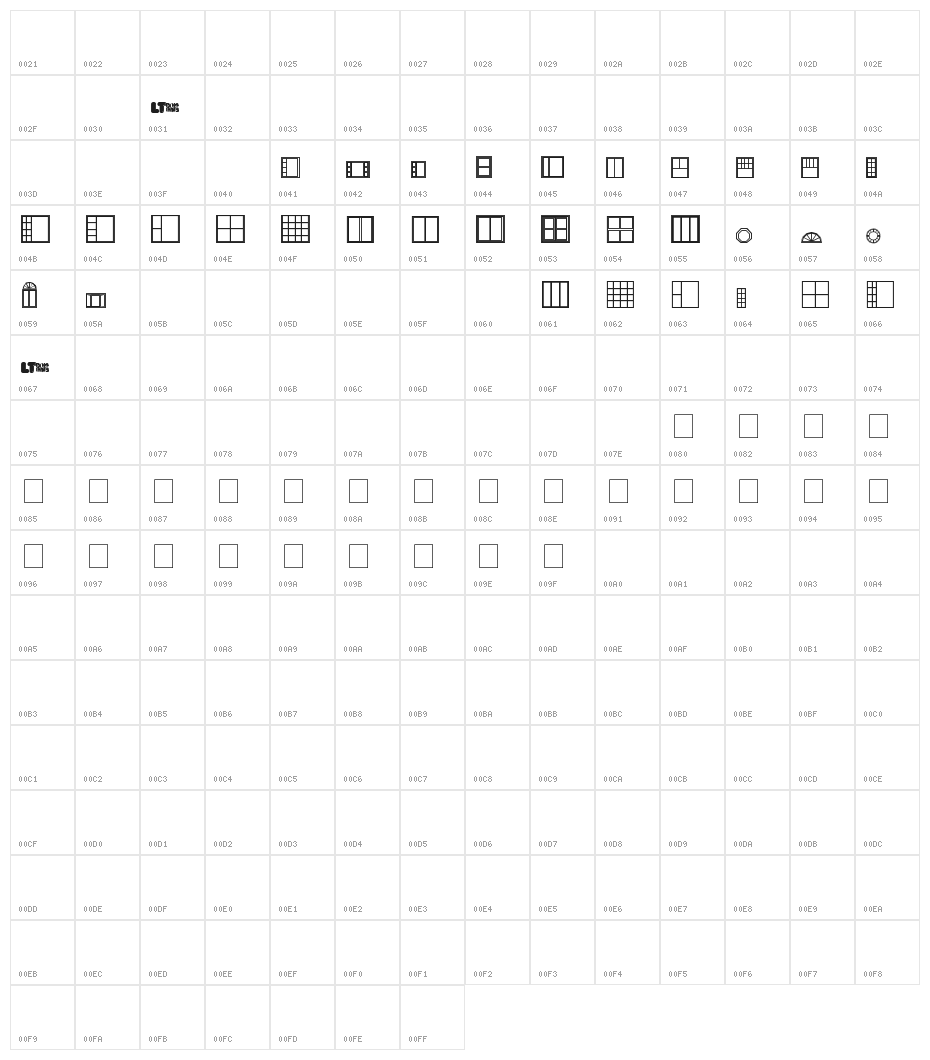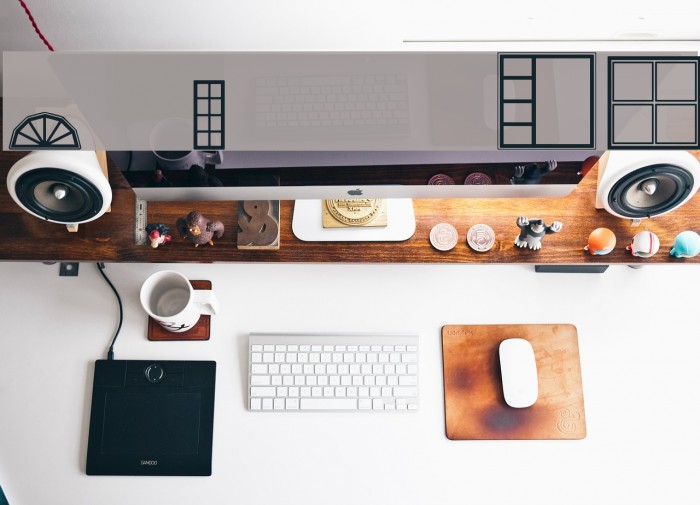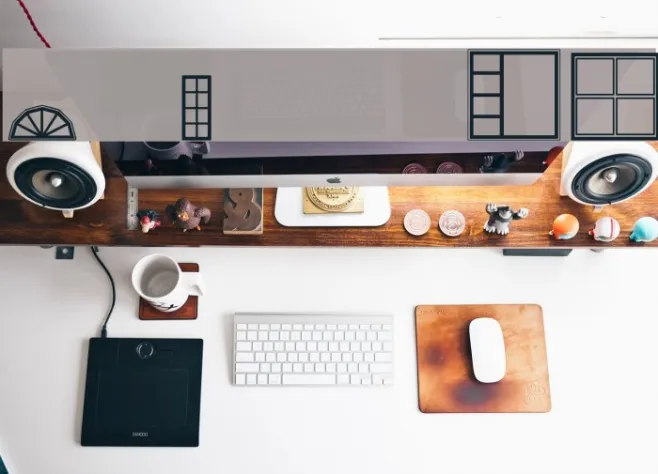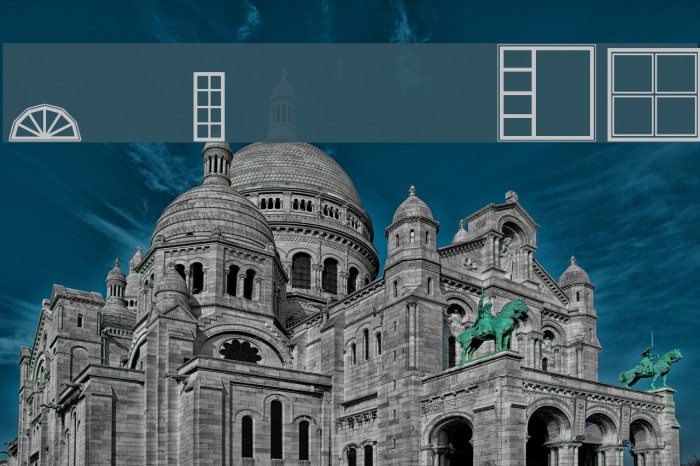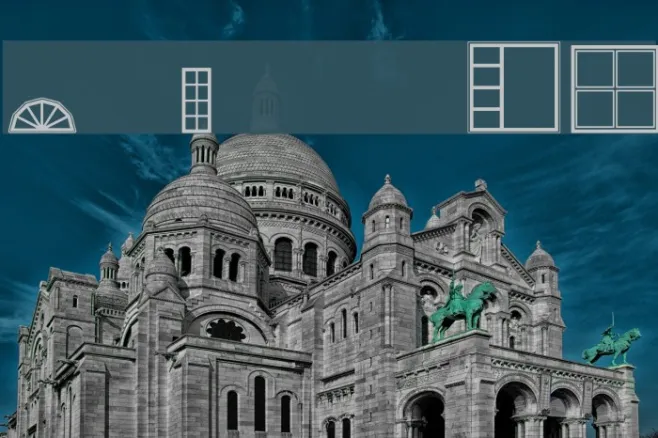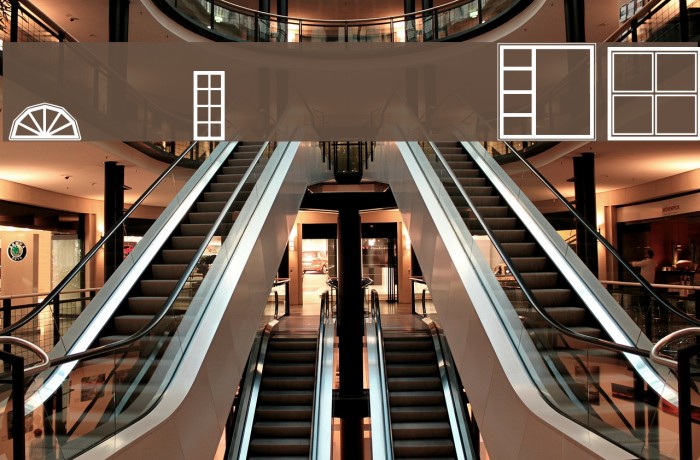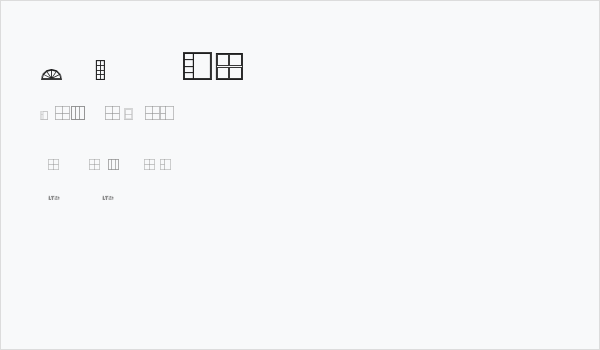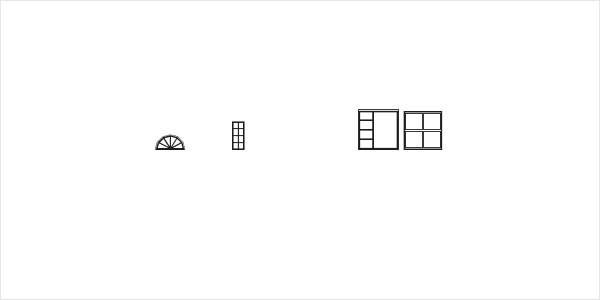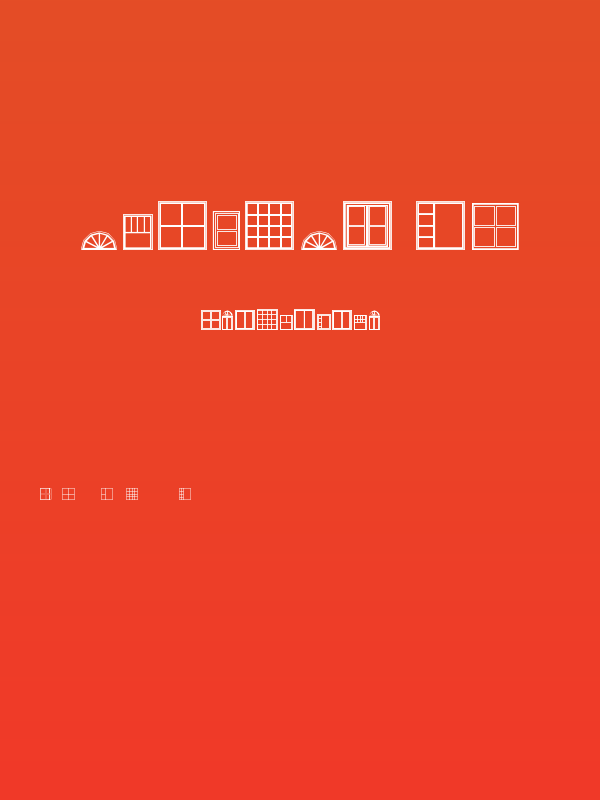
Windows LT Font
Windows LT Description
This is a decorative dingbat font featuring various window designs. Each character is represented by a unique window style, ranging from simple rectangular panes to more intricate designs like circular and arched windows. The font is primarily composed of bold, clean lines that form the outlines of each window, providing a clear and distinct appearance. The designs are consistent in their geometric style, making them suitable for creative projects that require a touch of architectural or structural elements. The font does not include traditional alphabetic or numeric characters, focusing solely on these window illustrations.
| Use Case | Logos, Decorative elements, Creative design projects |
| Proposed Projects | Ideal for architectural presentations, creative design projects, or any visual content needing decorative window illustrations. |